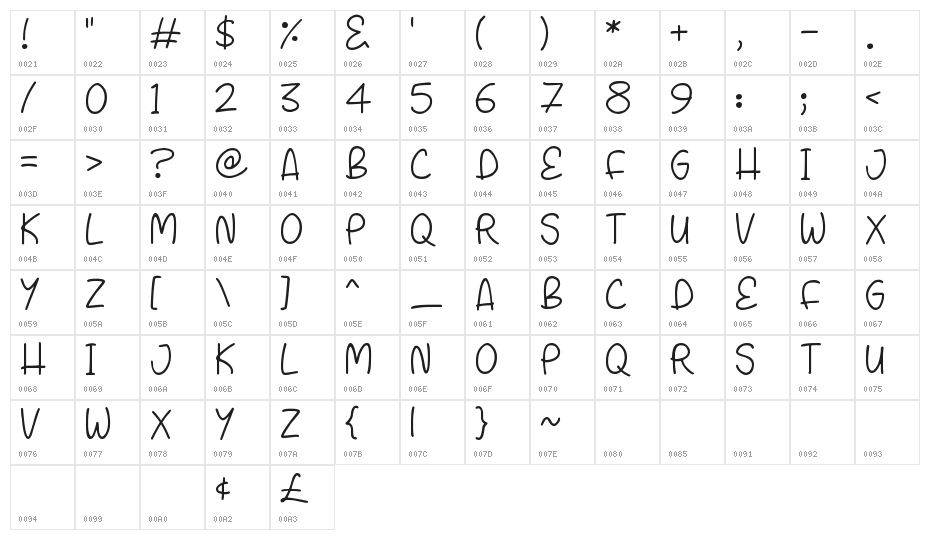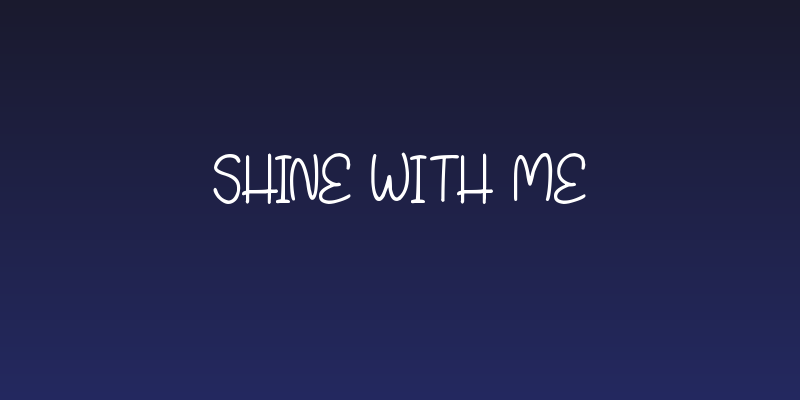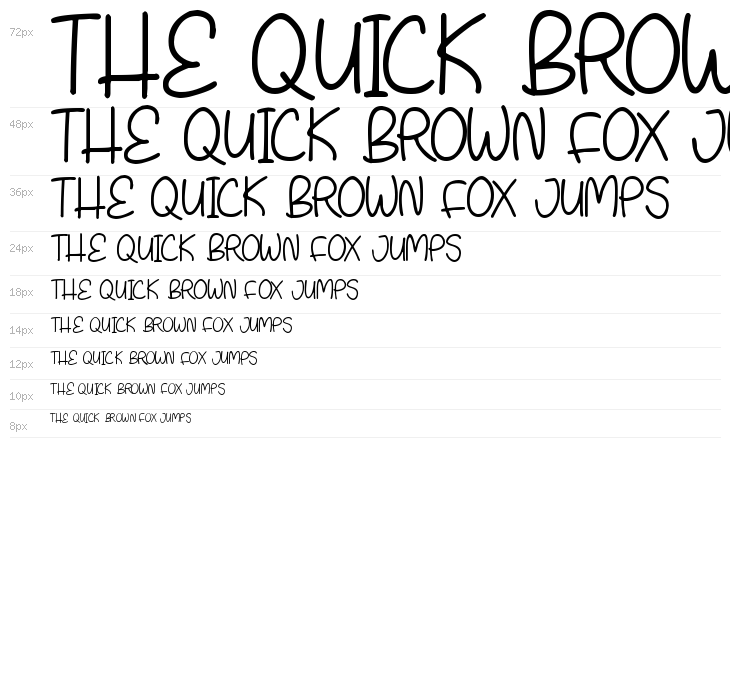
Shine With Me Font
Shine With Me Description
This playful and energetic font features a handwritten style with a casual, friendly appearance. The letters are rounded and slightly irregular, giving it a personal touch that mimics natural handwriting. The strokes are consistent in width, providing a uniform look while maintaining a lively feel. The font includes both uppercase and lowercase letters, numbers, and a variety of special characters, making it versatile for different uses. Its informal style makes it ideal for projects that require a personal or approachable tone.
| Overall Style | Casual |
| Use Case | Headlines, Informal text, Branding |
| Proposed Projects | Ideal for greeting cards, children's books, playful branding, and social media graphics. |